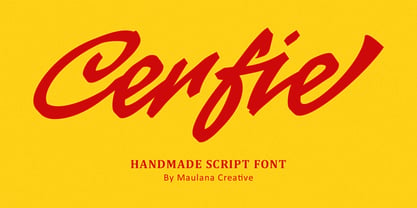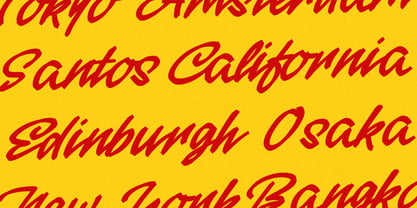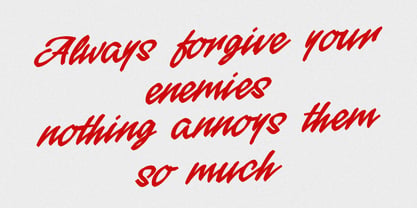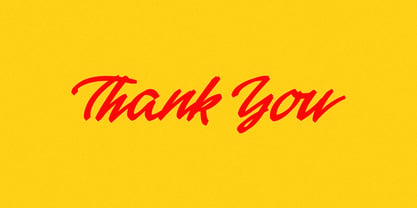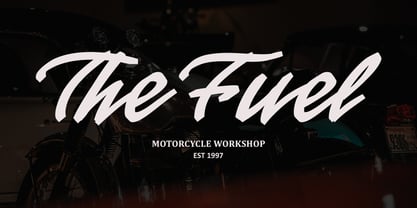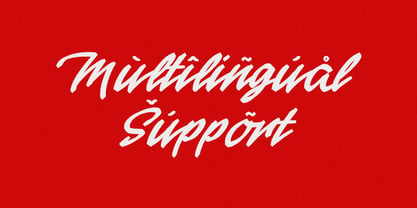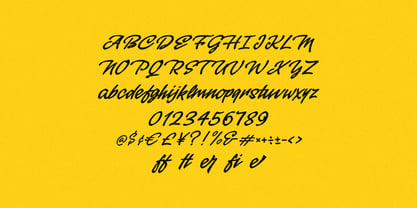
MC Cerfie
by Maulana Creative
The MC Cerfie Font Family was designed by Gilang Maulana and published by Maulana Creative. MC Cerfie contains 1 styles. More about this family
Cerfie Script Handmade Font is a bold, energetic, and expressive script typeface designed to give your projects a dynamic and handmade feel. With its thick strokes and flowing, brush-like quality, Cerfie is perfect for high-impact display use, instantly grabbing attention. This font is versatile, suitable for a wide range of applications from branding businesses to engaging quotes and international campaign materials. It includes a full set of uppercase and lowercase letters, numbers, punctuation, and essential glyphs, as well as multilingual support, making it an excellent choice for designs that require a retro, sporty, or confident hand-drawn look. Cerfie brings a touch of raw authenticity and cool, custom style to any design.
Designers: Gilang Maulana
Foundry: Maulana Creative
Maulana Creative has started to focus on making fonts since 2014Maulana Creative has started to focus on making fonts since 2014Maulana Creative has started to focus on making fonts since 2014Maulana Creative has started to focus on making fonts since 2014Maulana Creative has started to focus on making fonts since 2014Maulana Creative has started to focus on making fonts since 2014